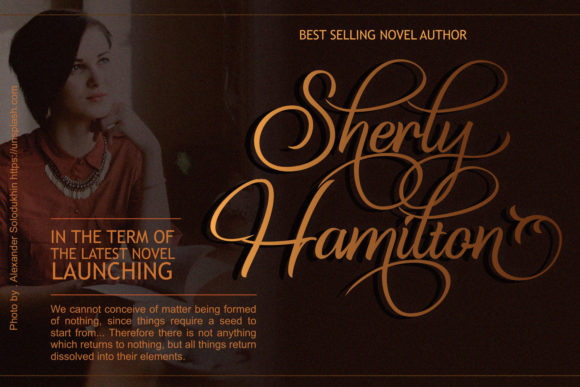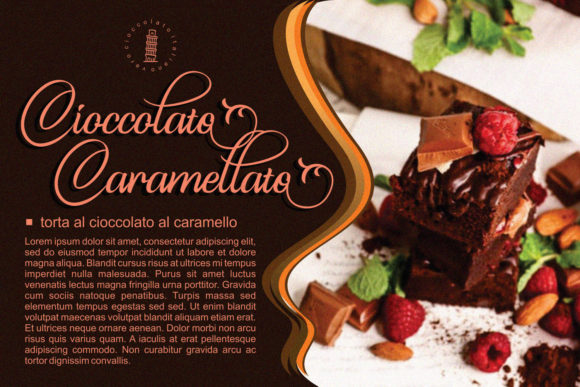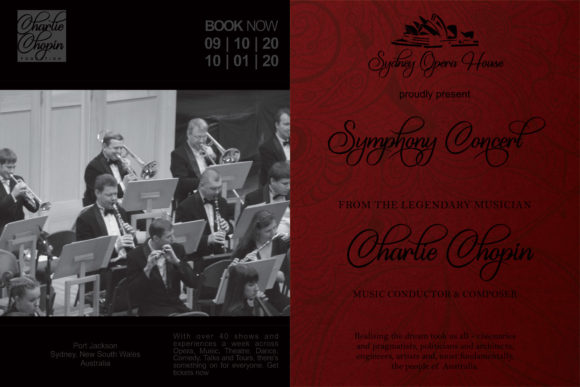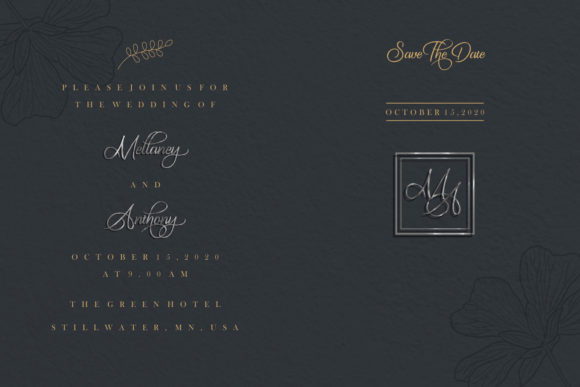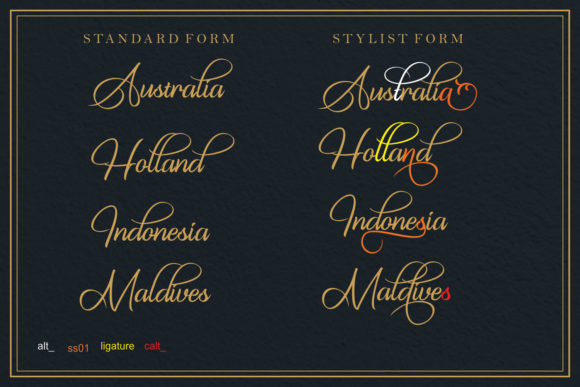
The King of Romance Font
The King Of Romance is a classic and elegant handwritten font. It is enriched with alternative characters and ligatures that make this font even more beautiful. Add it to your favorite creative ideas and make them stand out!